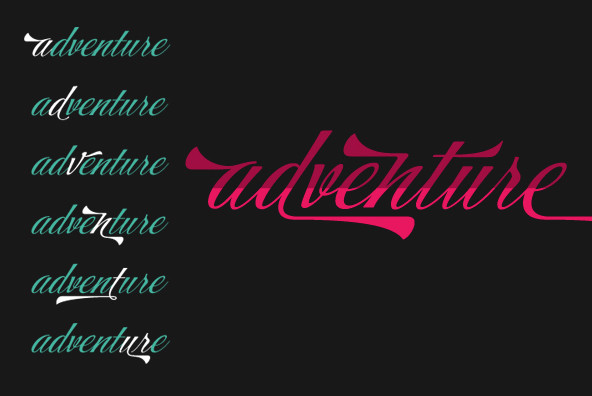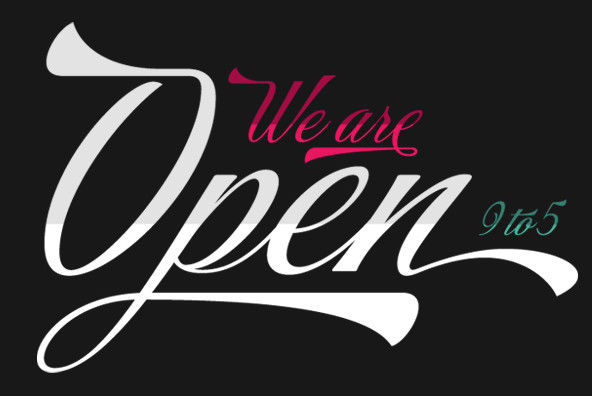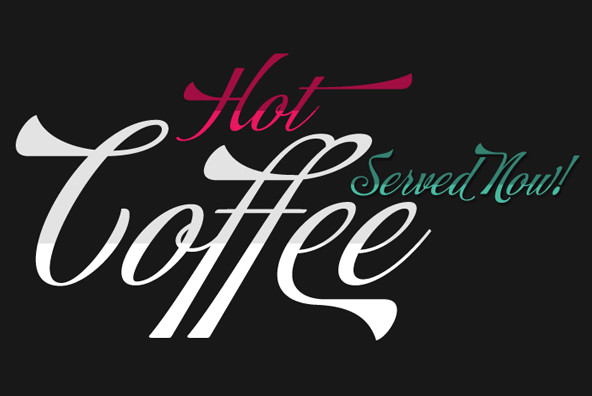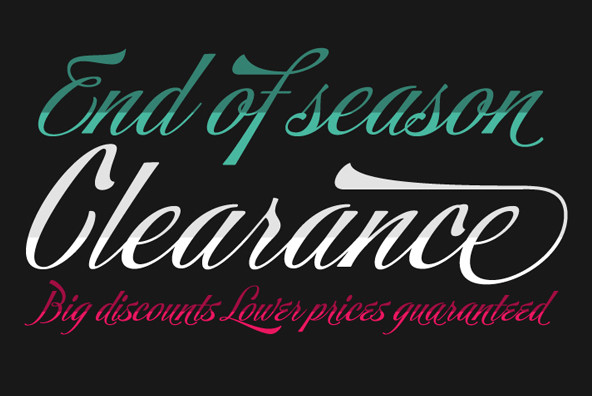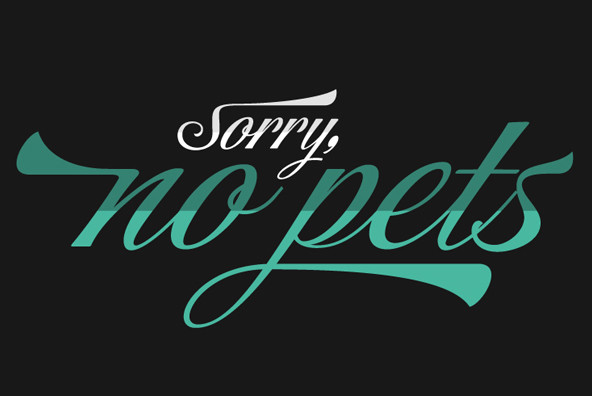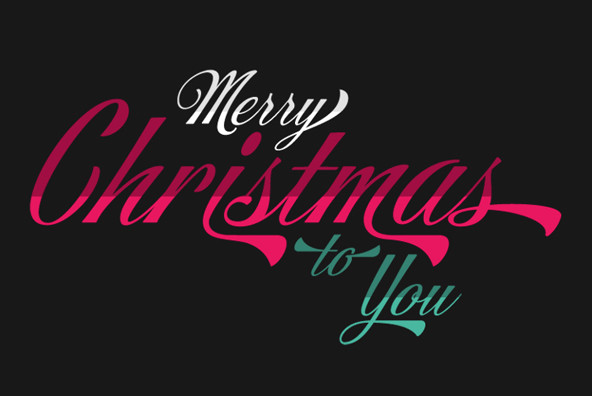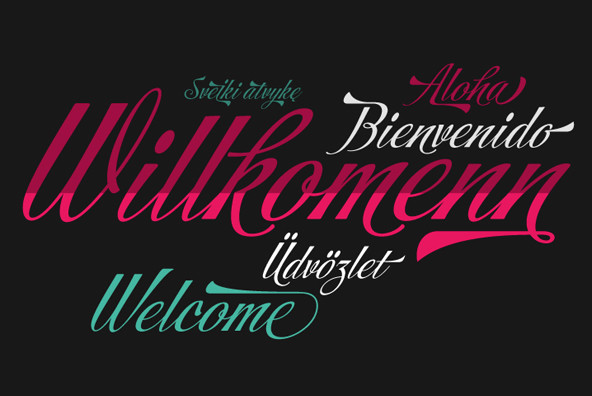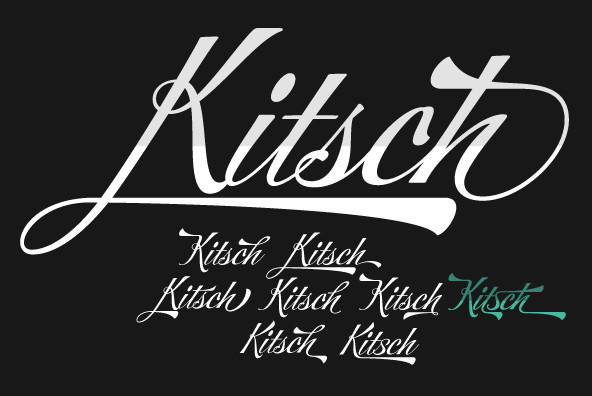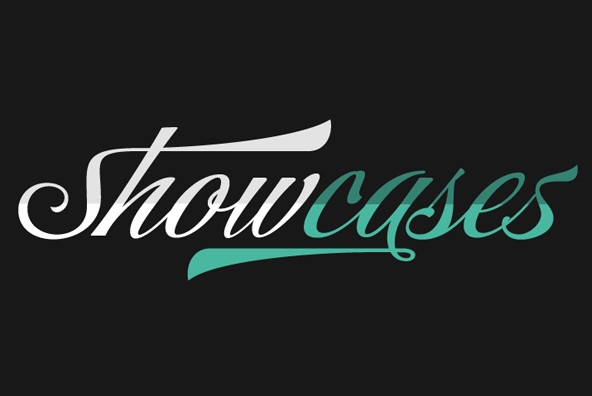
Storefront Pro
Foundry: Sudtipos
Storefront is what the prolific and talented American sign painters of the 1920s and 1930s would have created if they had access to the advanced lettering and type technologies we have today. Rooted in an incomplete Alf Becker alphabet sample, Storefront is my usual overdose on alternates and swashes, my eternal attempt at giving typesetting that ever-elusive handmade impression.
Though the main shapes, especially the majuscules, are almost a standard recitation of the natural evolution of nineteenth century scripts, the additional variants available within the font provide a leap in time to what sign makers and packagers are doing today. I can honestly say that Storefront’s influences are probably less historic and more in line with my recent travels and frequent supermarket visits. It’s difficult to avoid current visual culture when you're constantly bombarded with it. Not that I try. I certainly welcome the overflow. I'm probably addicted to it by now.
With a very cool aesthetic, plenty of alternates and swashes, extended Latin language support, Storefront is over a thousand glyphs for your branding, packaging, and sign making pleasure.